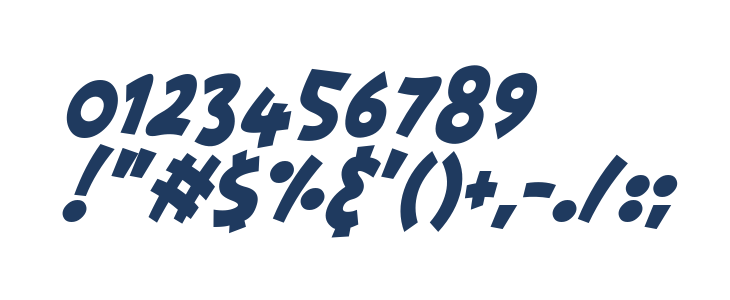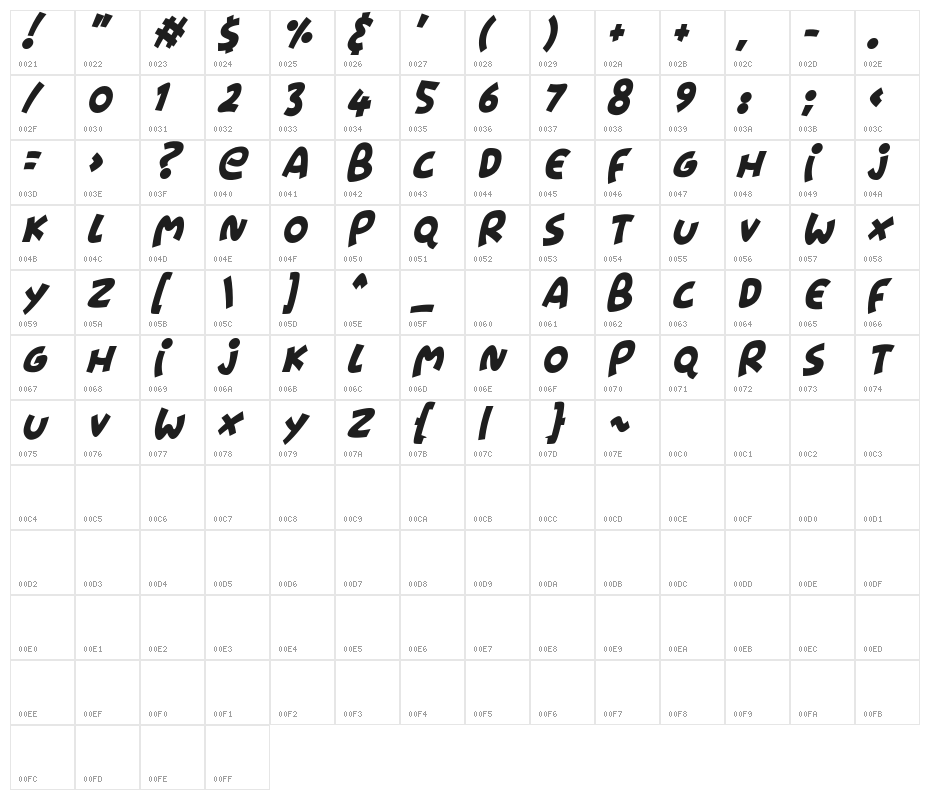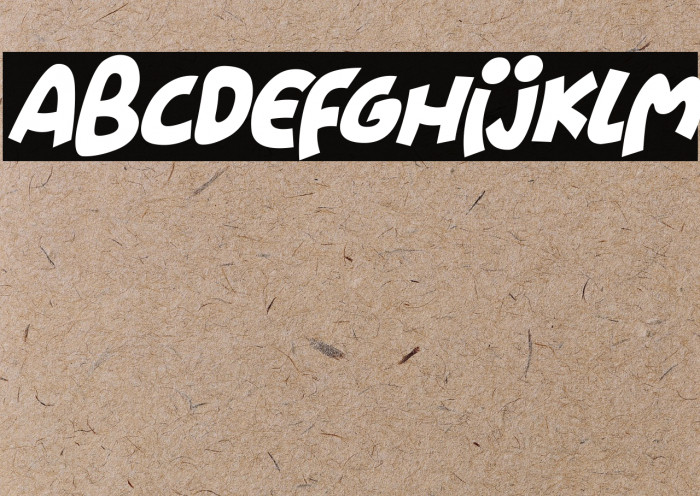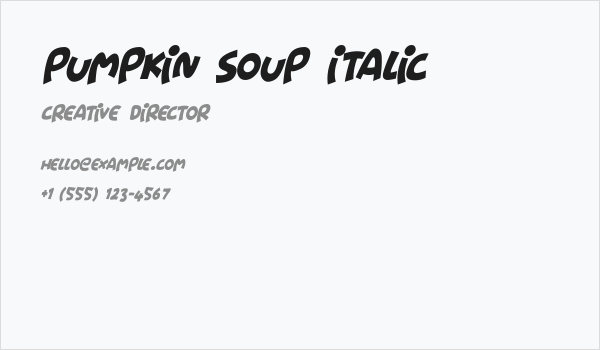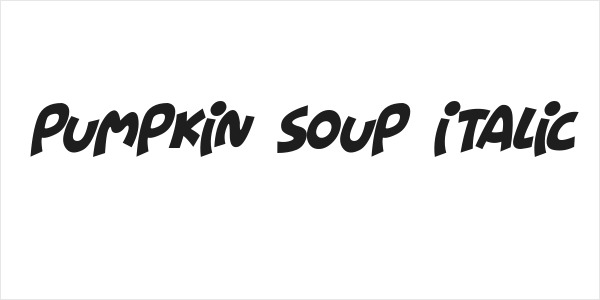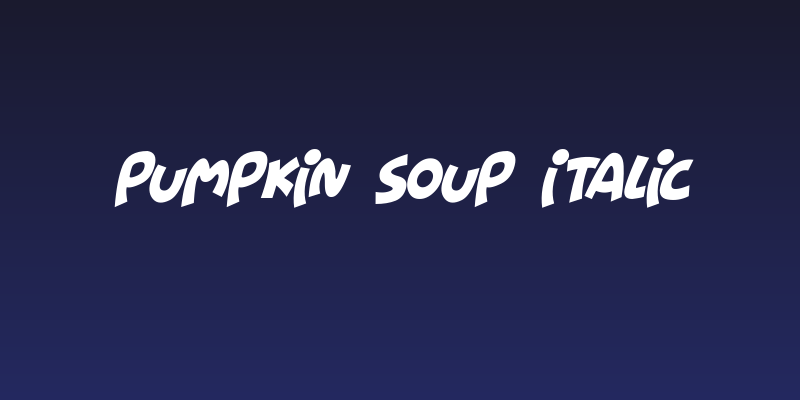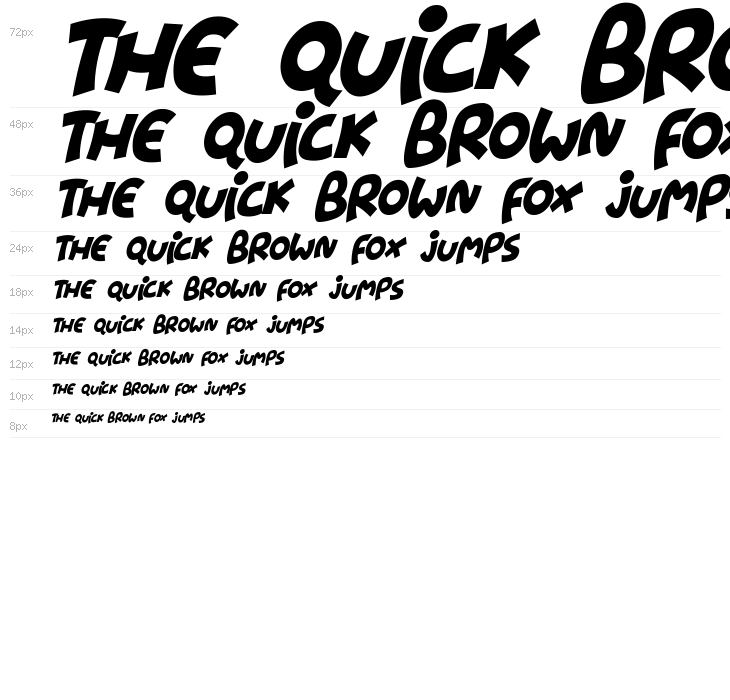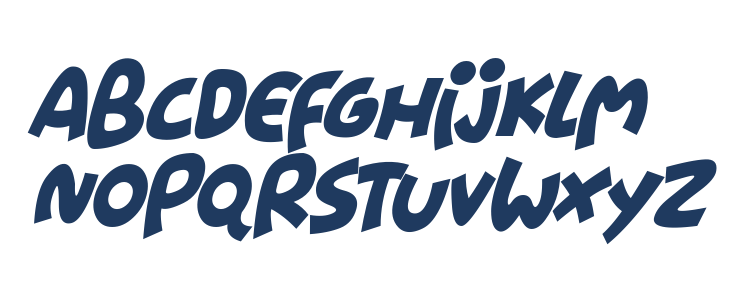
Pumpkin Soup Italic Font
Pumpkin Soup Italic Description
This font features a playful and bold style with a distinct italic slant, giving it a dynamic and energetic appearance. The characters are rounded and slightly exaggerated, adding a whimsical touch. The uppercase and lowercase letters maintain a consistent flow, while the numbers and special characters complement the overall design with their bold and curvy forms. The font's thick strokes and smooth curves make it highly legible, even at smaller sizes, while its unique style ensures it stands out in any design project.
| Overall Style | Playful, Energetic |
| Proposed Projects | Ideal for children's books, playful branding, event posters, and creative social media graphics. |